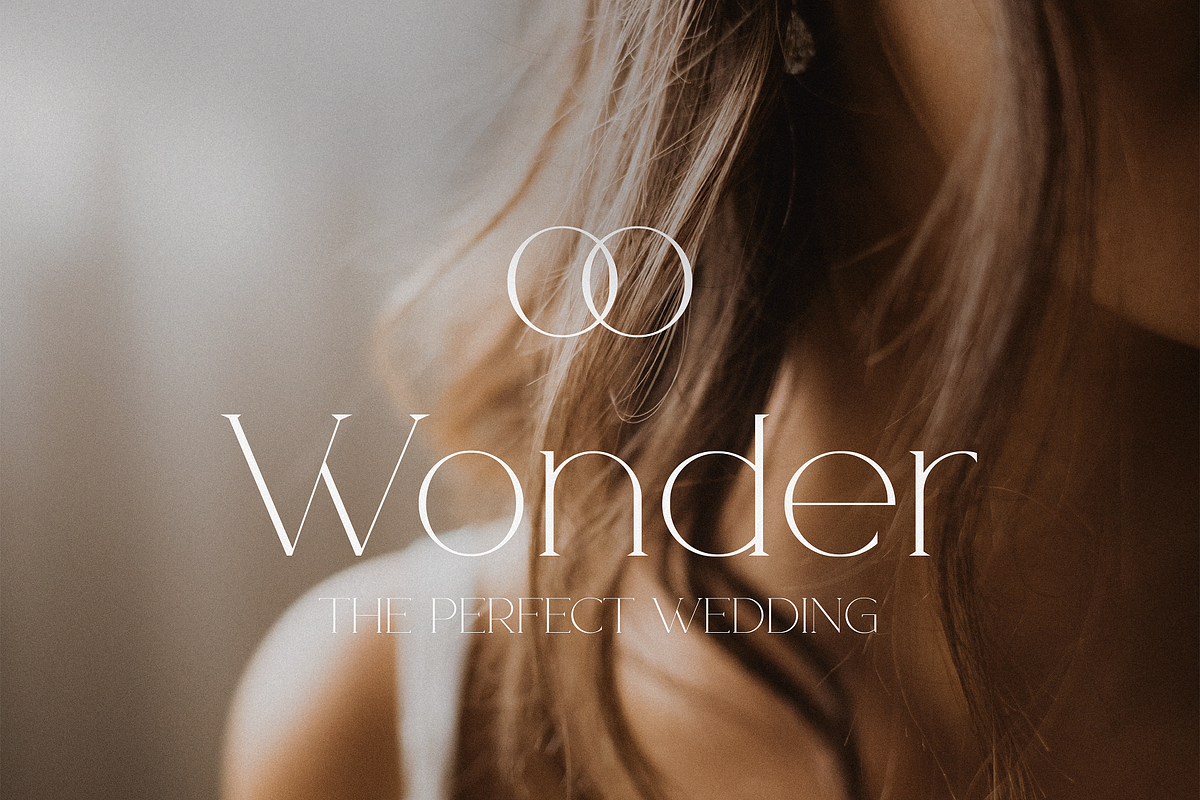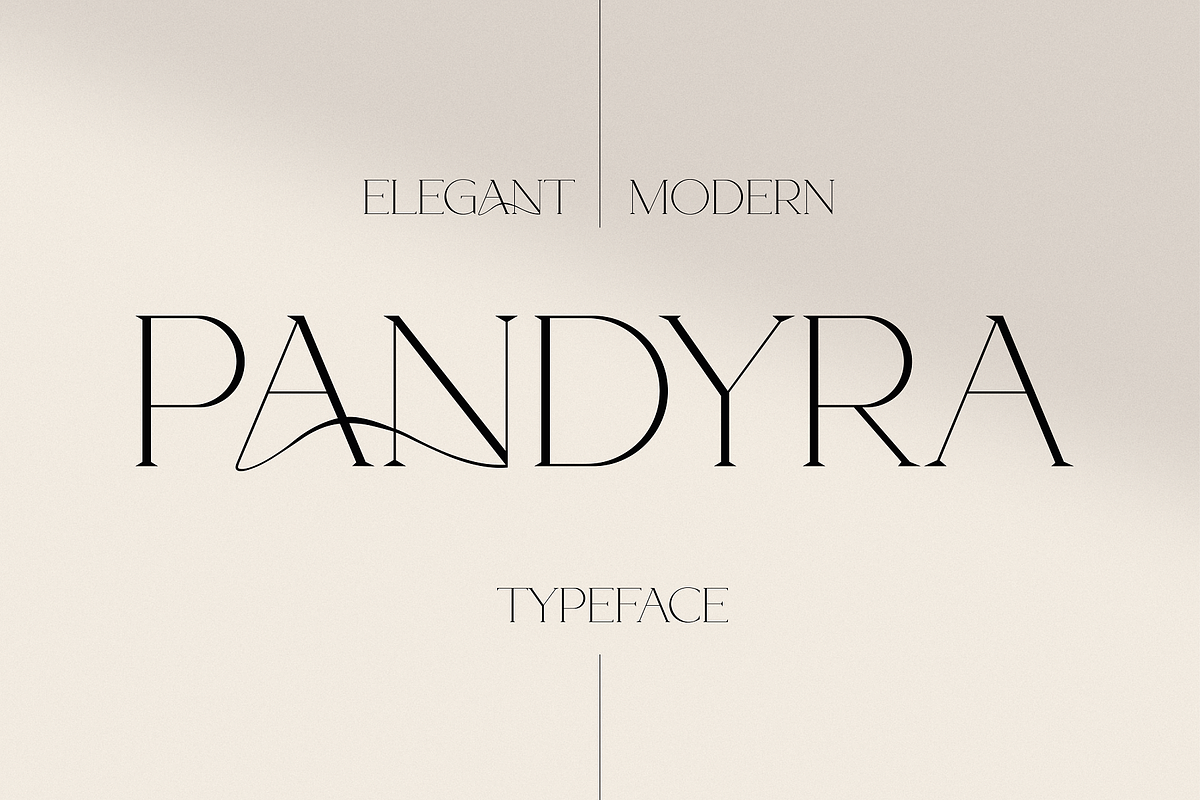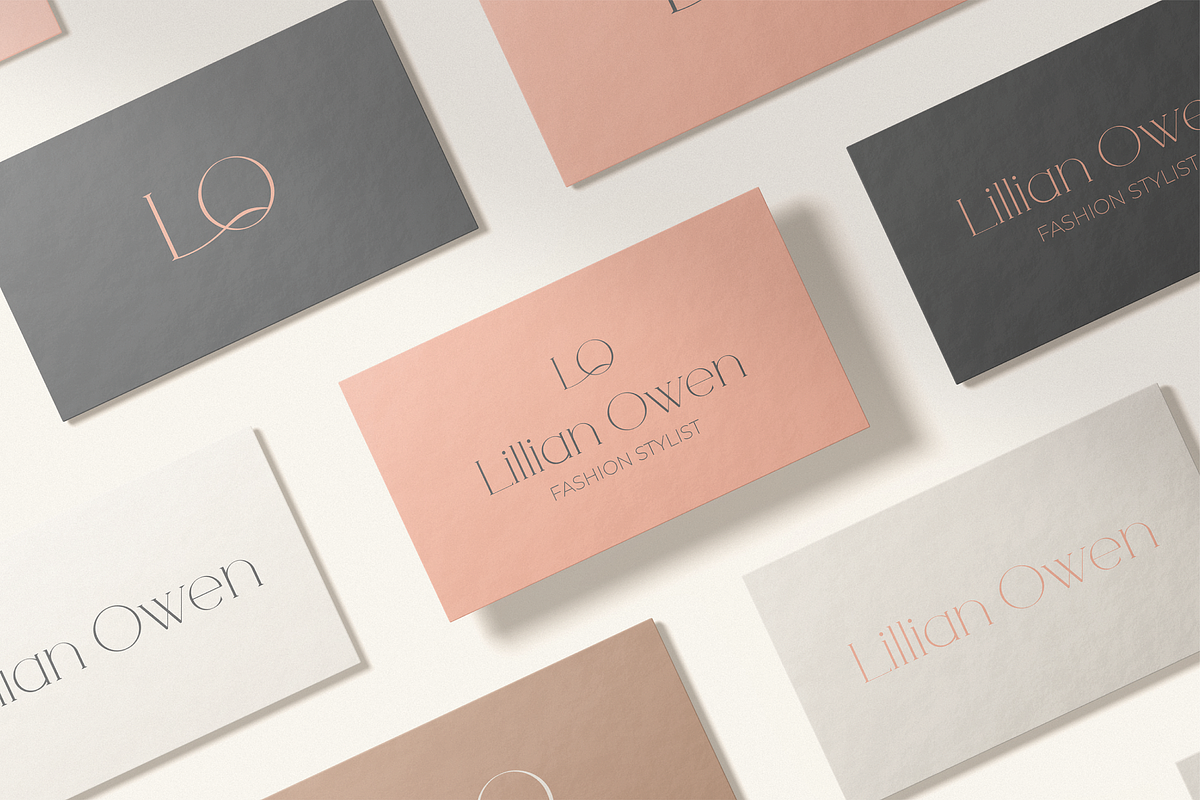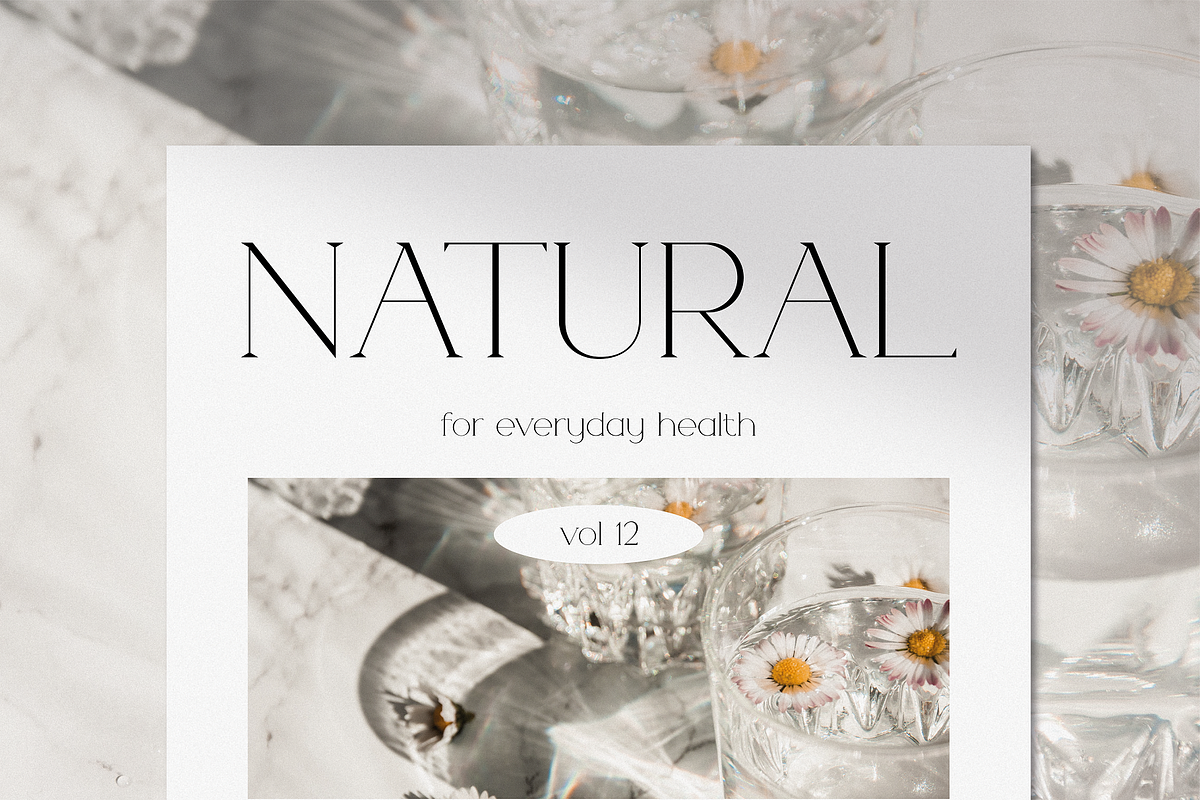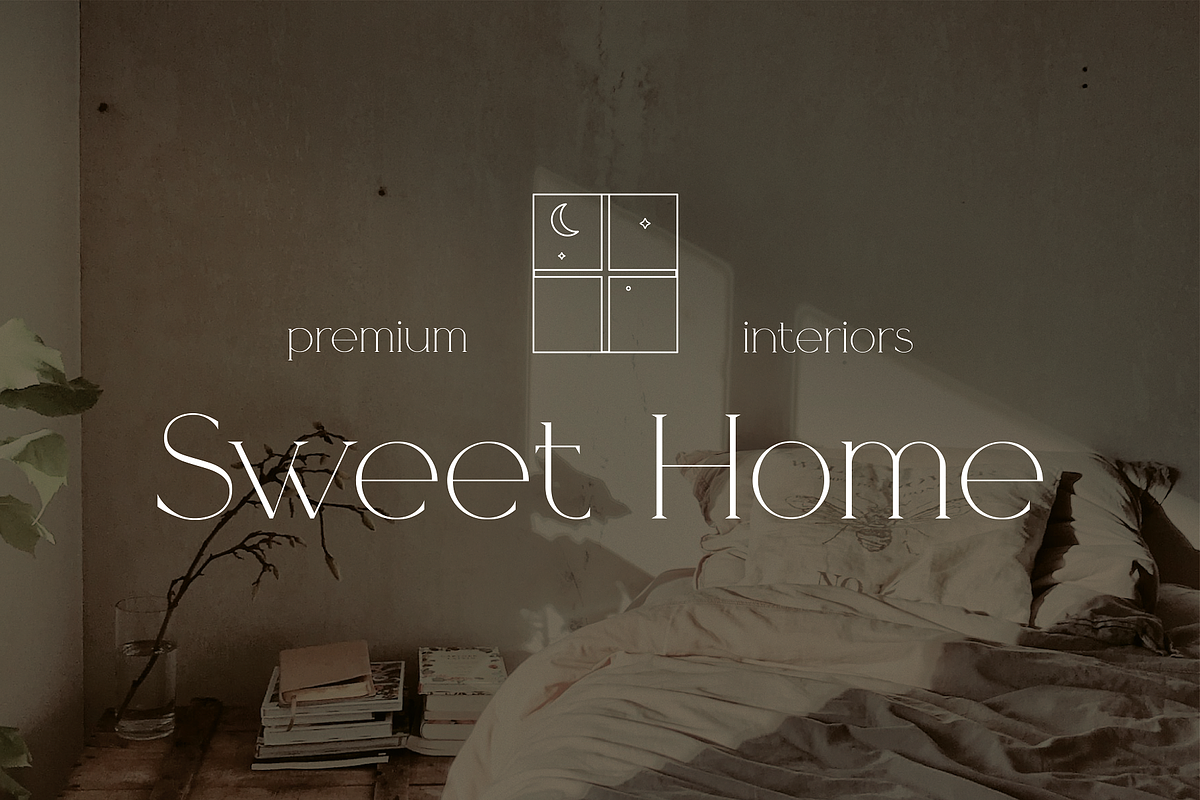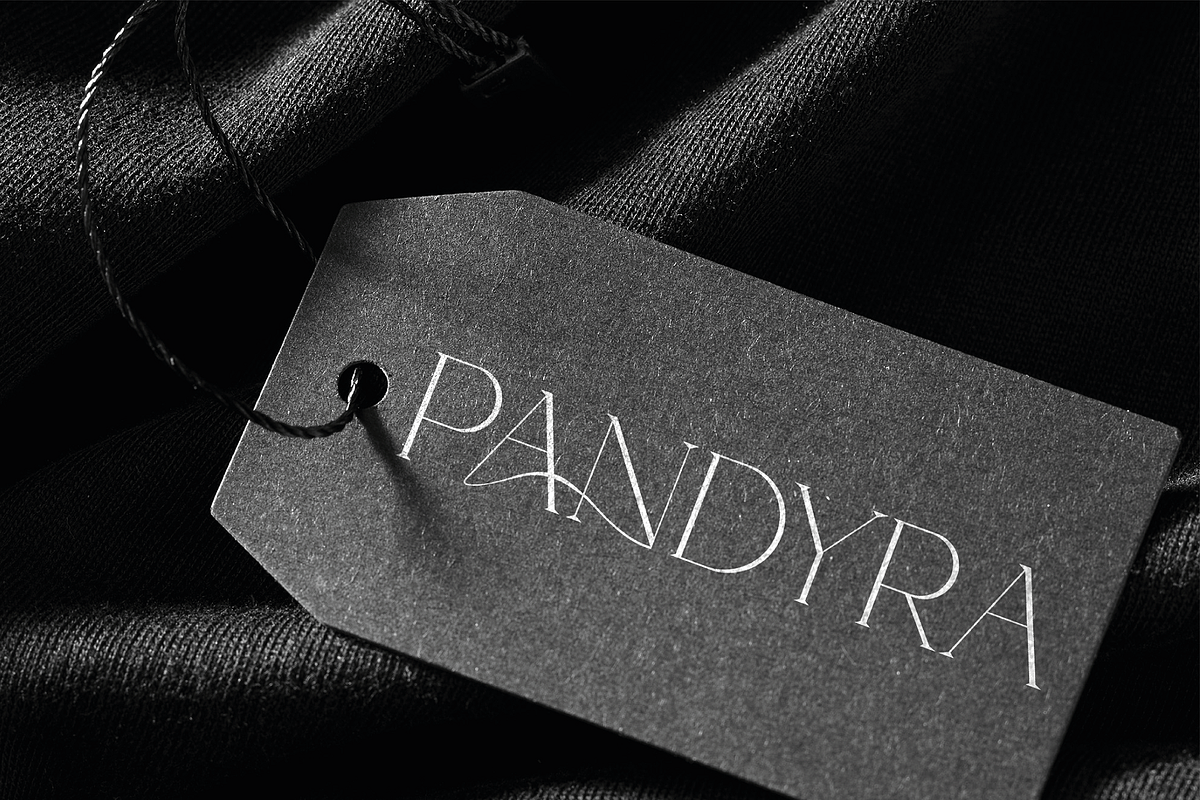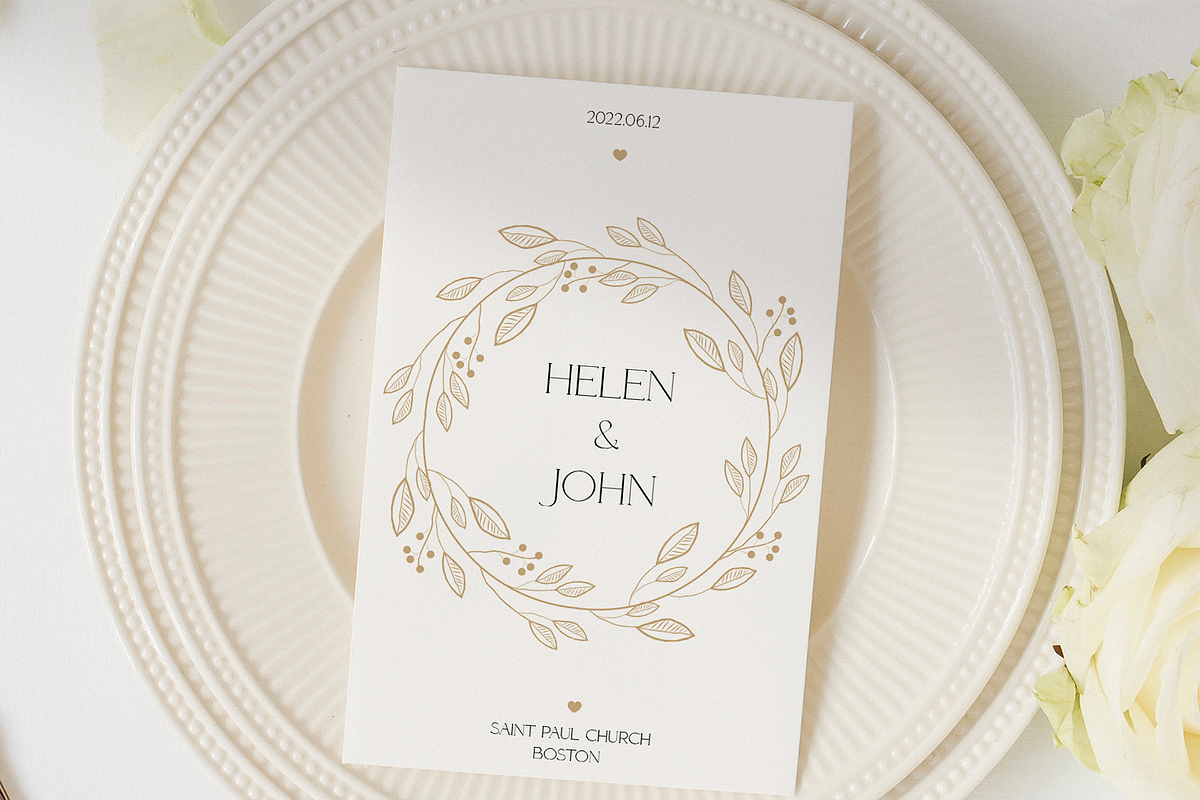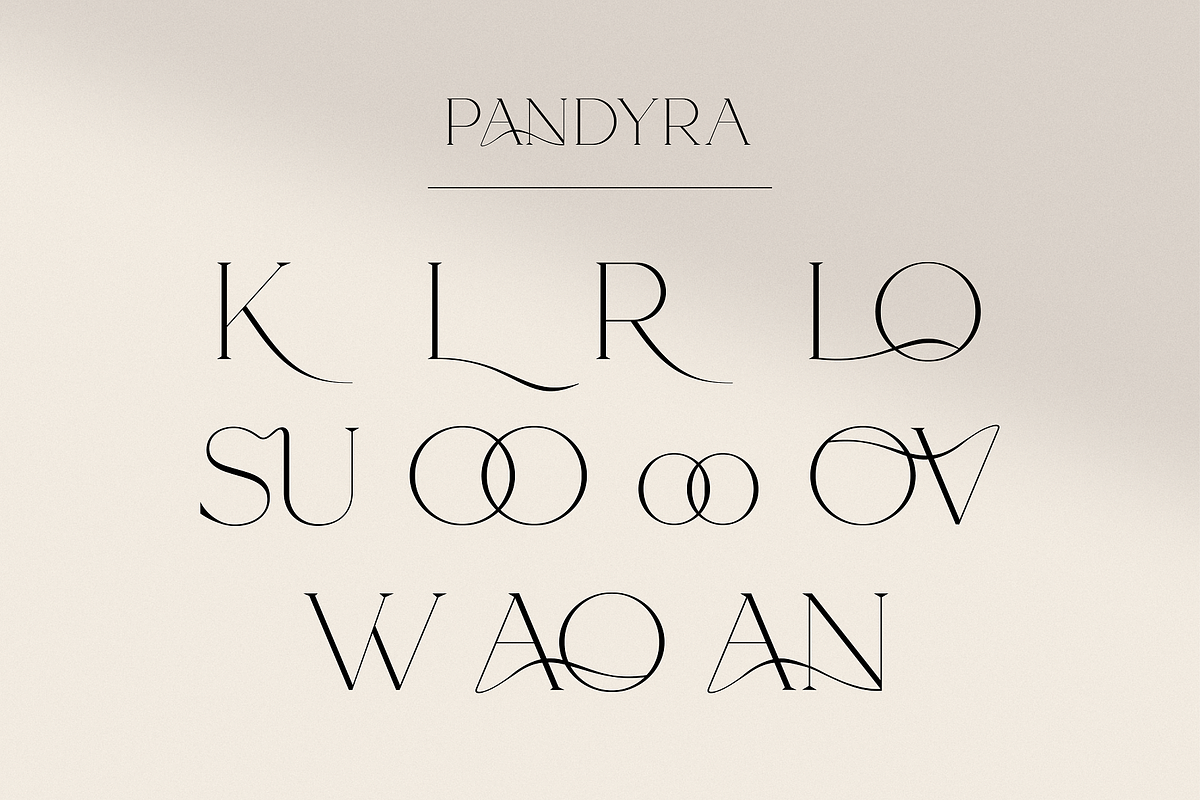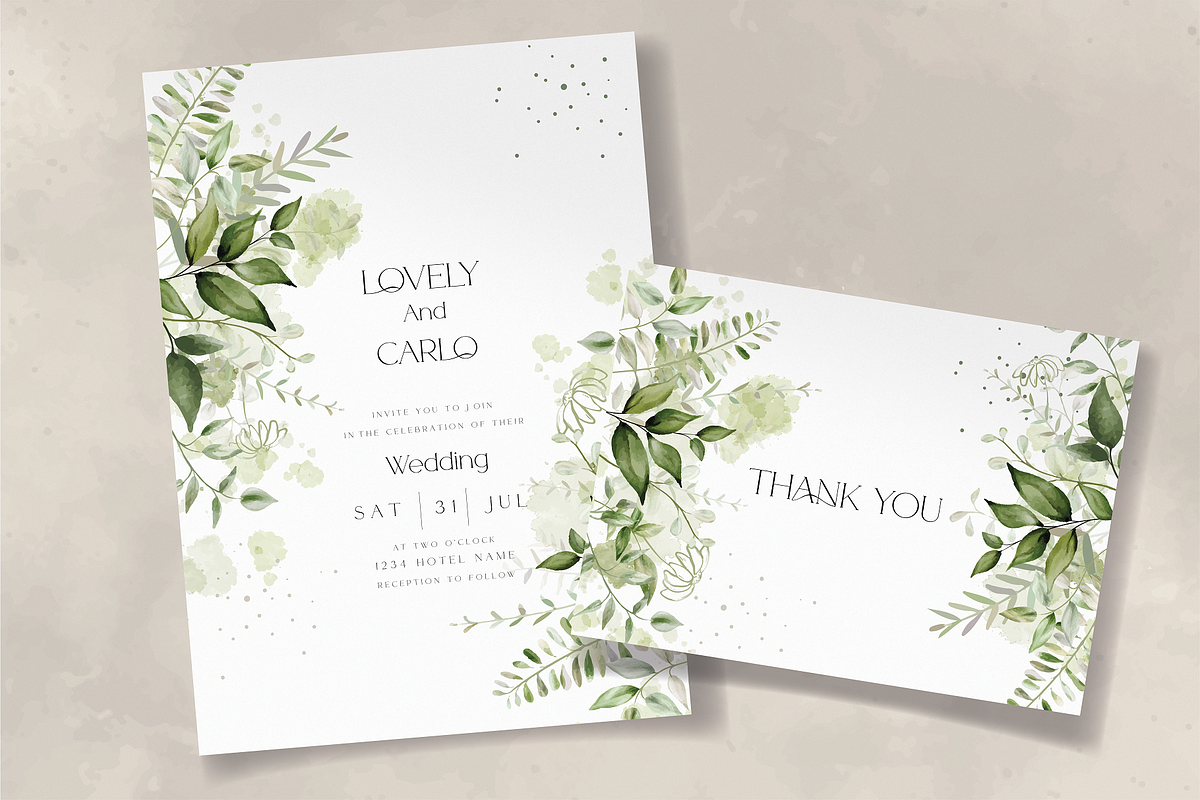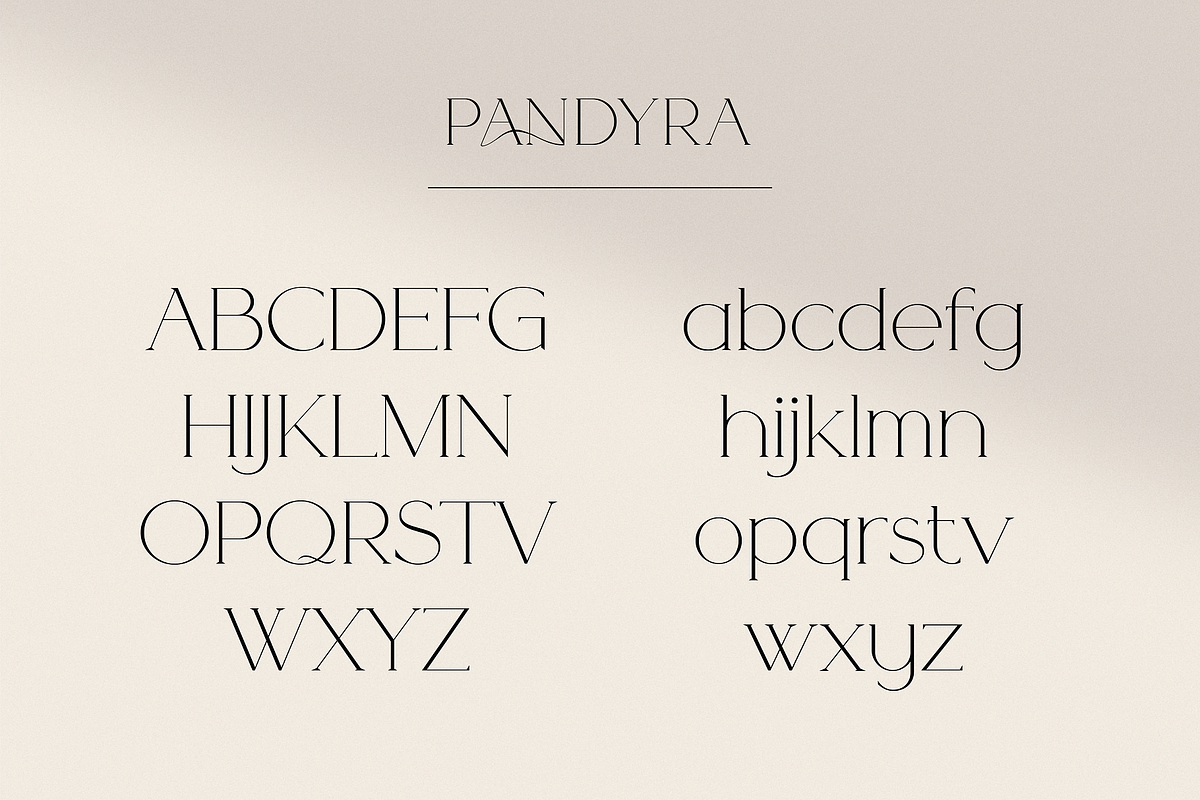
Pandyra - Delicate Luxury Serif
Pandyra is a modern typeface built on the philosophy that less is more. Its clean, minimalist construction draws the eye naturally — creating a quiet confidence that feels at home in the most discerning design environments.
The complete character set includes uppercase and lowercase letters, numerals, special characters, and carefully crafted ligatures, giving you the flexibility and precision to execute your vision without compromise.
Pandyra is the typeface of choice for projects where sophistication is non-negotiable — luxury branding, editorial spreads, wedding stationery, packaging, advertising, web design, and logo work all benefit from its effortless, refined presence.
Understated yet unforgettable, Pandyra brings a timeless quality to everything it touches.